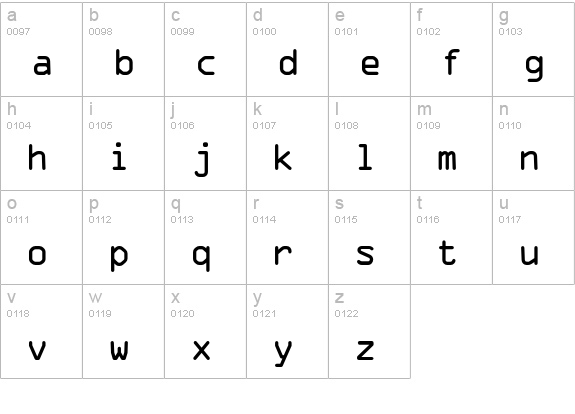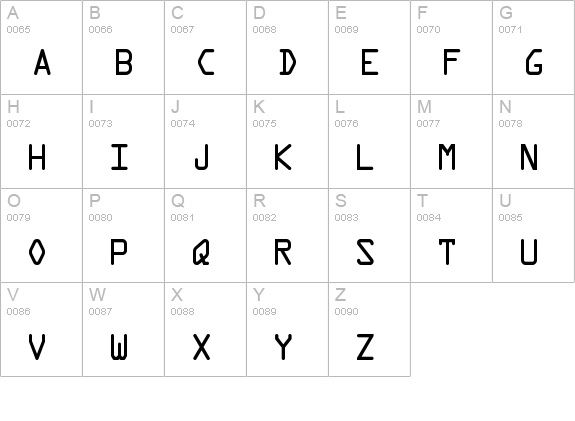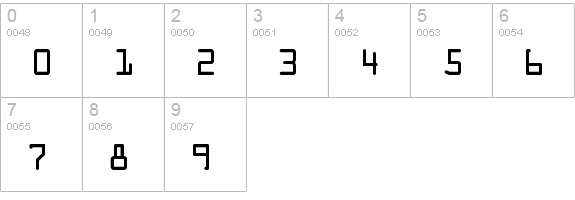
OCRAExtended Font Details
The OCRAExtended font is a modern and versatile typeface that combines the classic aesthetics of OCR fonts with a sleek and contemporary design. Its extended version offers a wider range of characters, making it perfect for various design projects such as posters, flyers, and branding materials. The clean lines and sharp edges of OCRAExtended exude a professional and polished look, ensuring readability and impact. Best of all, OCRAExtended is available for free download at FontsMarket.com, allowing designers and creatives to access this high-quality font without any cost. Its compatibility with various design software and ease of use make it a valuable addition to any designer's toolkit. Enhance your projects with the sophistication and clarity of OCRAExtended font today - download it for free and elevate your designs to the next level.